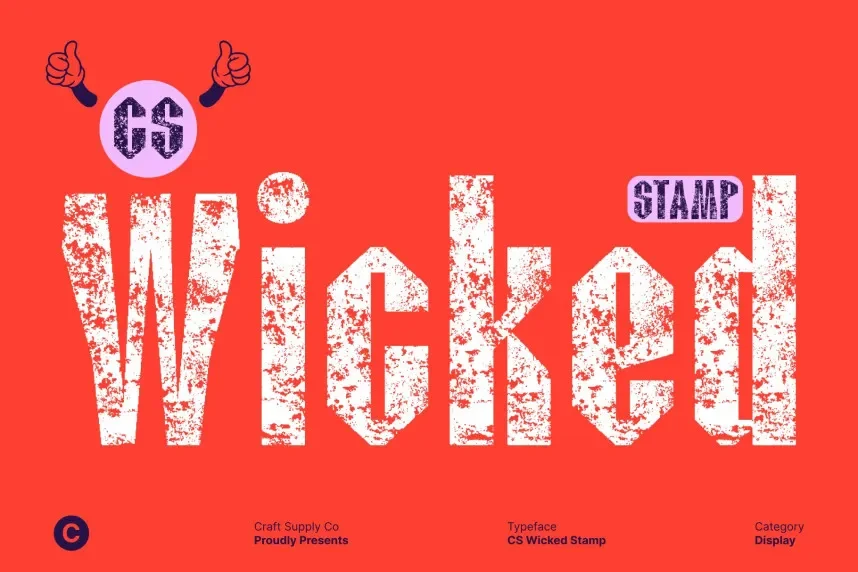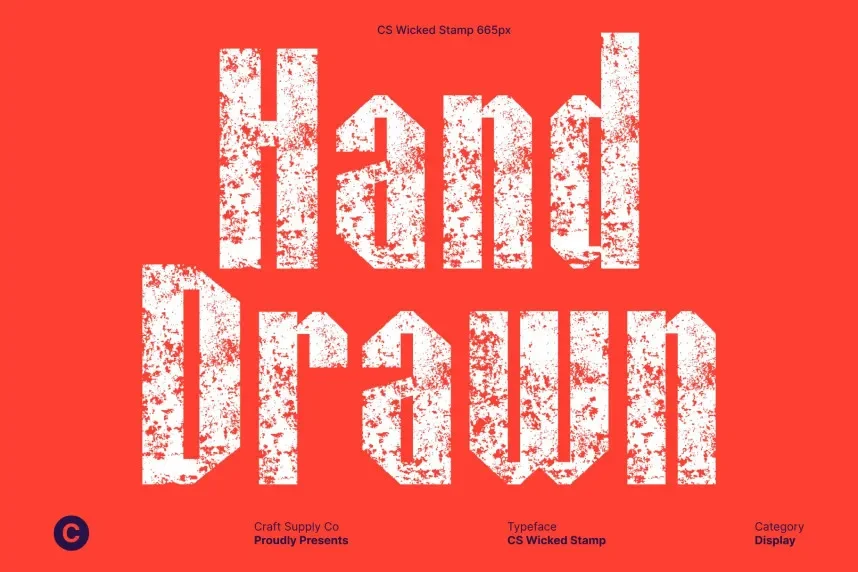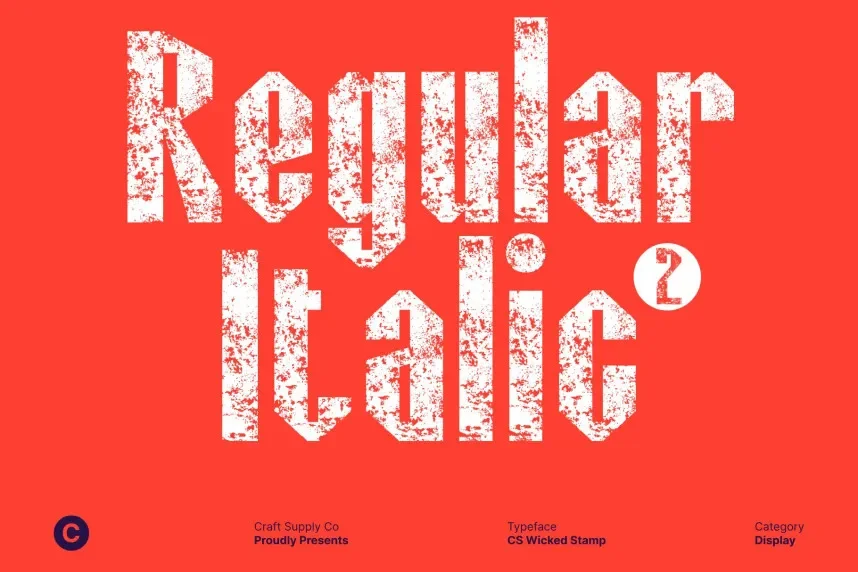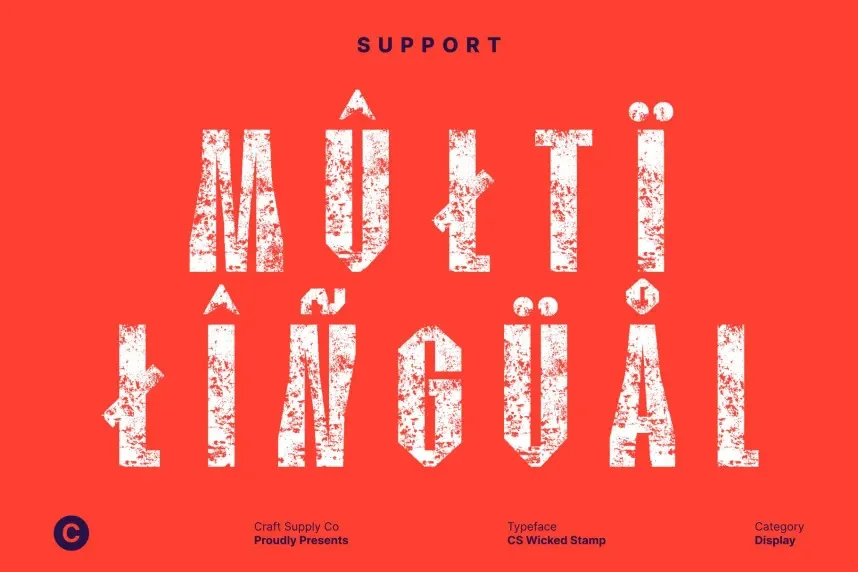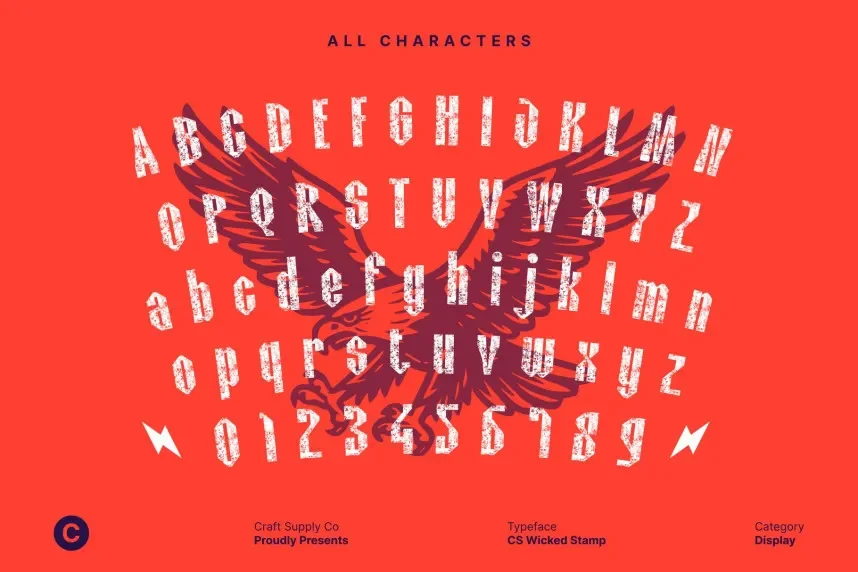
CS Wicked Stamp Font is a display typeface created for bold, distressed typography that remains readable. It addresses issues where textured fonts lose clarity in branding, posters, and social media layouts.
This stamp font uses thick strokes, rough textures, and uneven outlines. Characters keep strong structure, allowing consistent readability at larger sizes. CS Wicked Stamp Font focuses on visual impact for short text and headings.